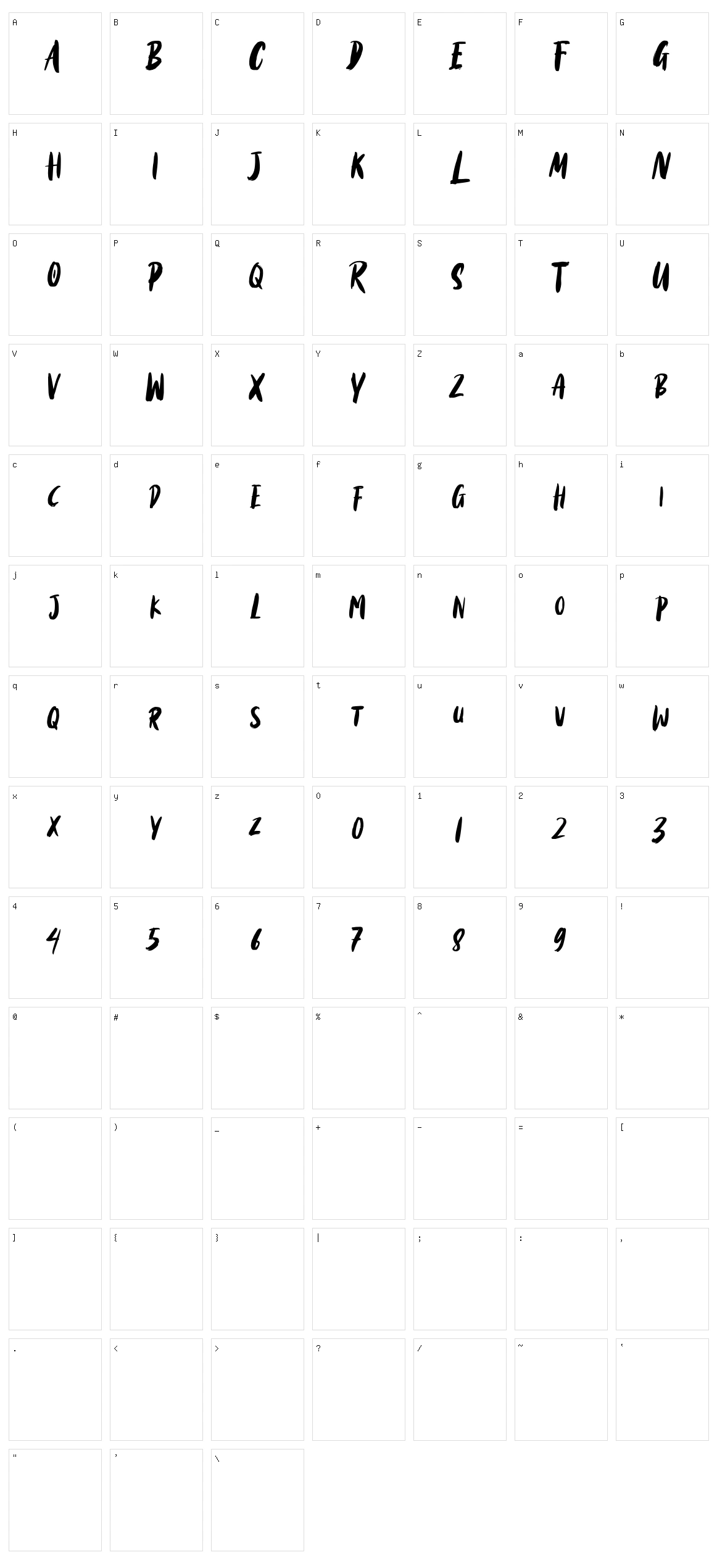
The free font Black Torch is carefully designed by Weape Studio, showcasing a thoughtful balance of creativity and usability and falls under the Script font style. When you download the ZIP file, it contains only 41.97 KB of font files, making it lightweight and quick to download. Please review the license details below to understand permitted usage and distribution rights. If license information is not available, we recommend using this font for personal projects only or contacting the author directly for commercial usage permissions.
Black Torch 2019 by Weape Design